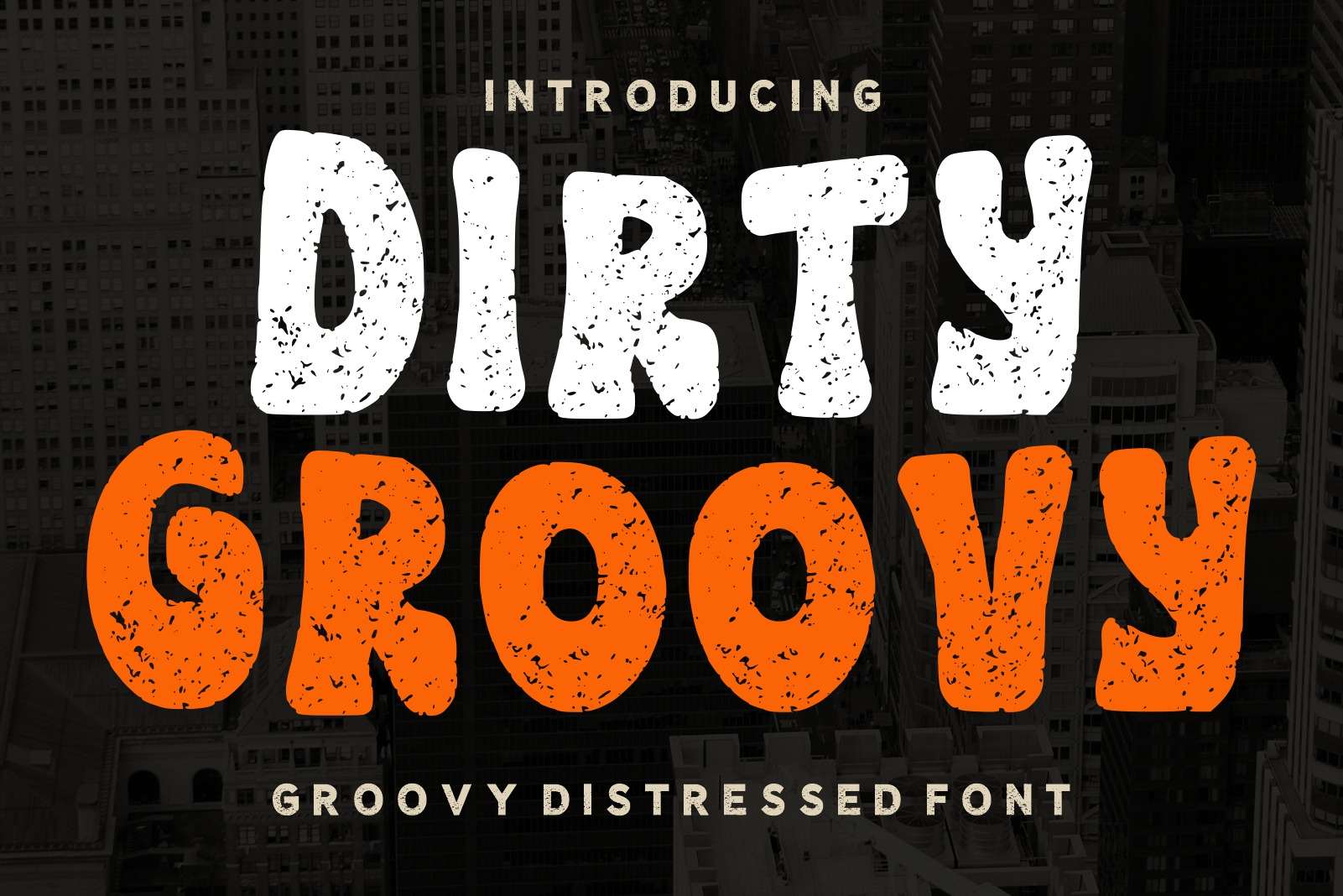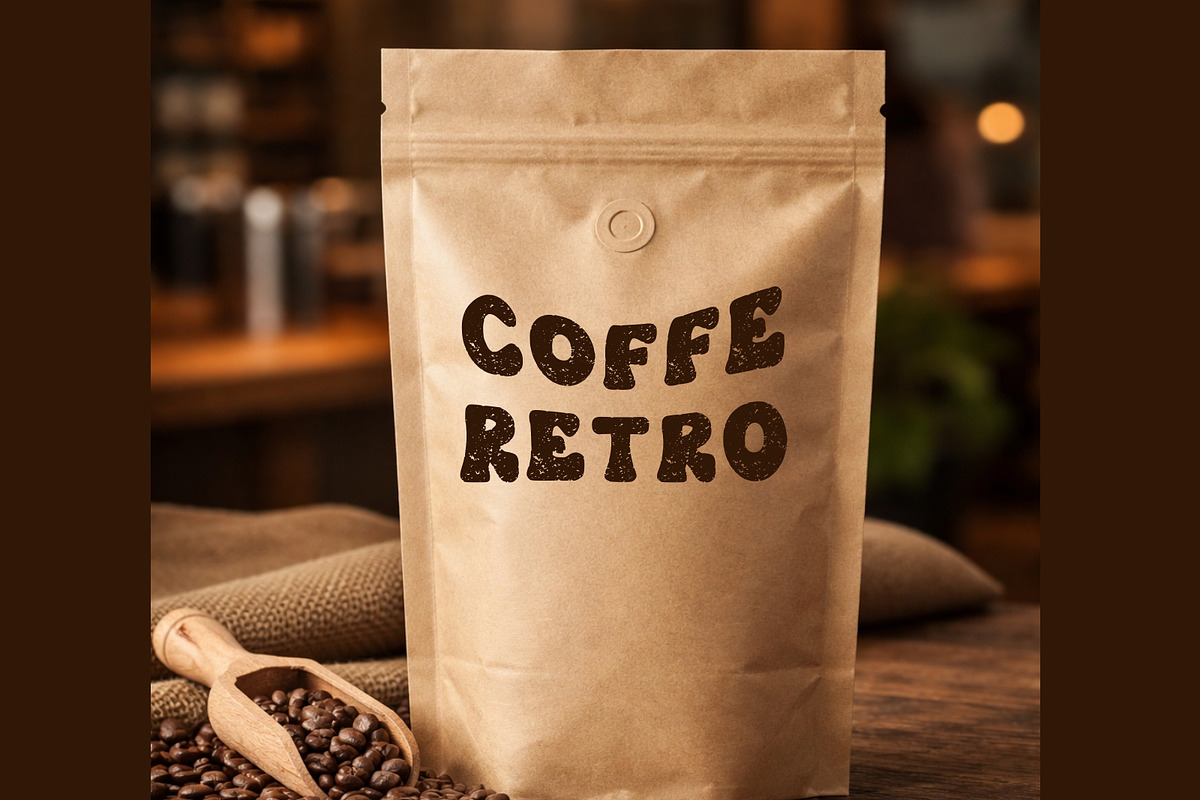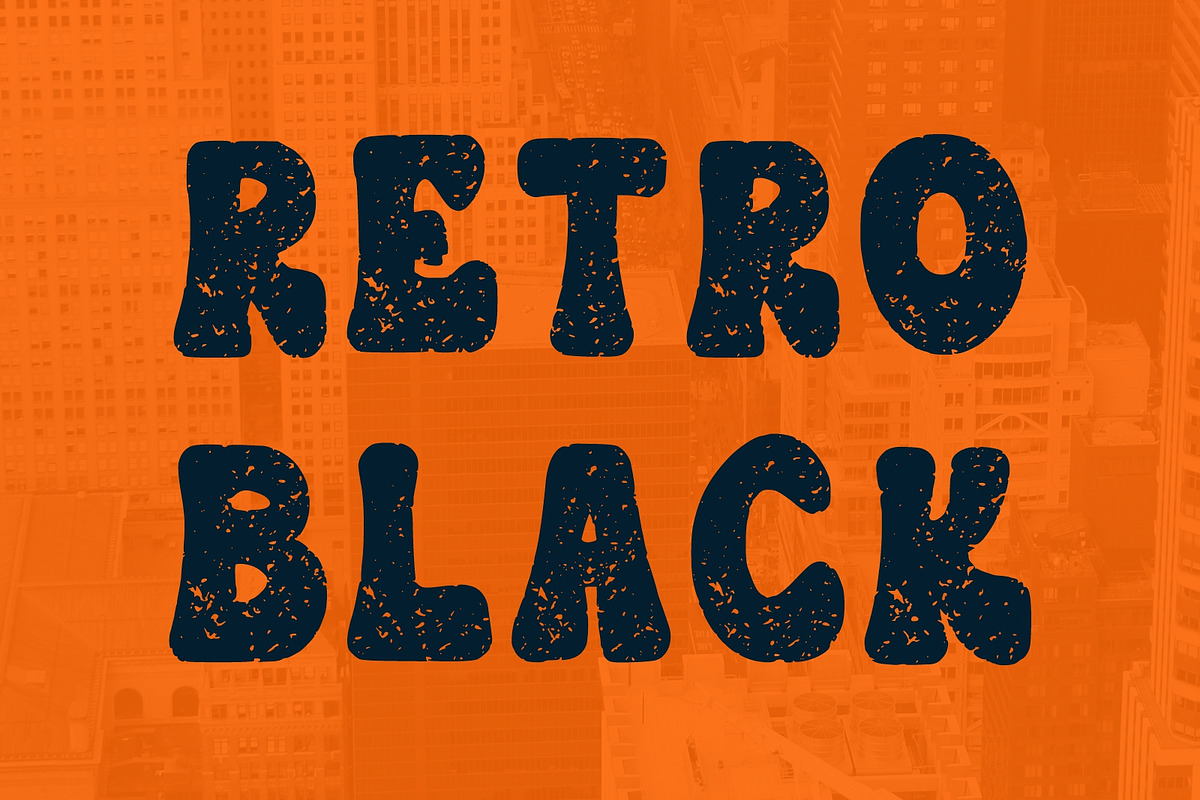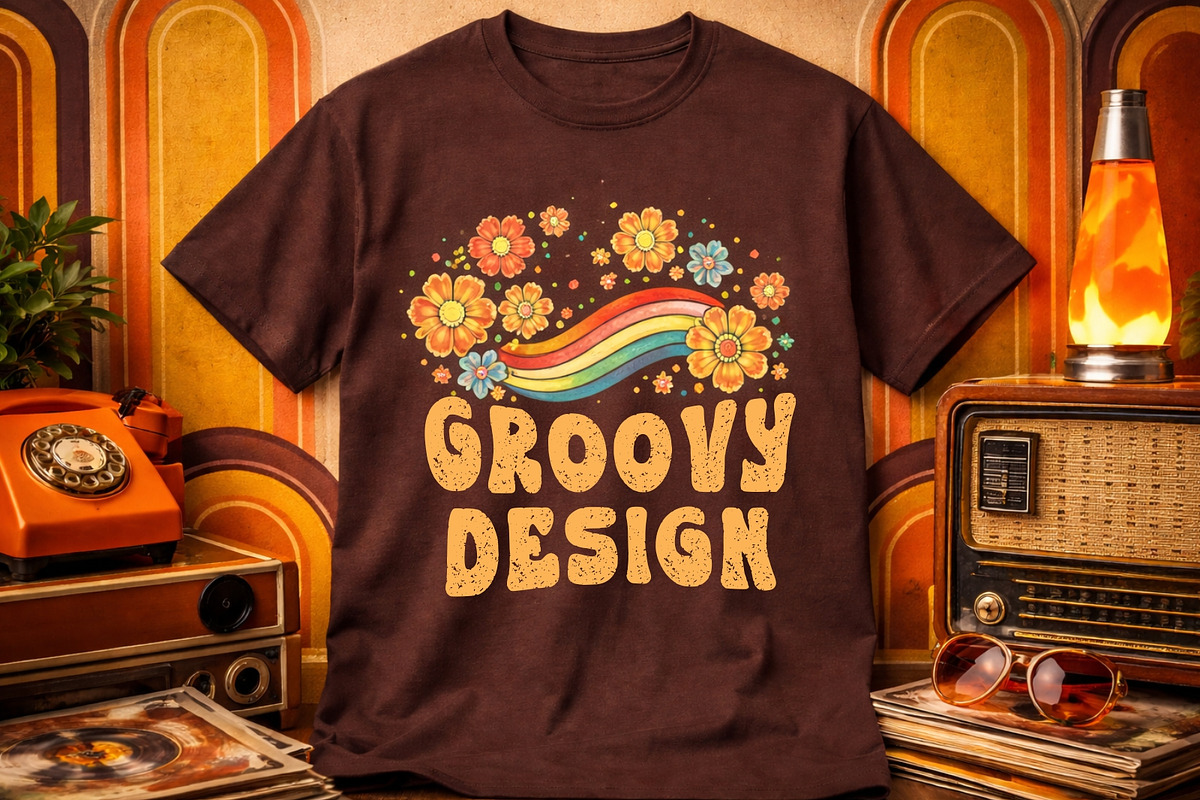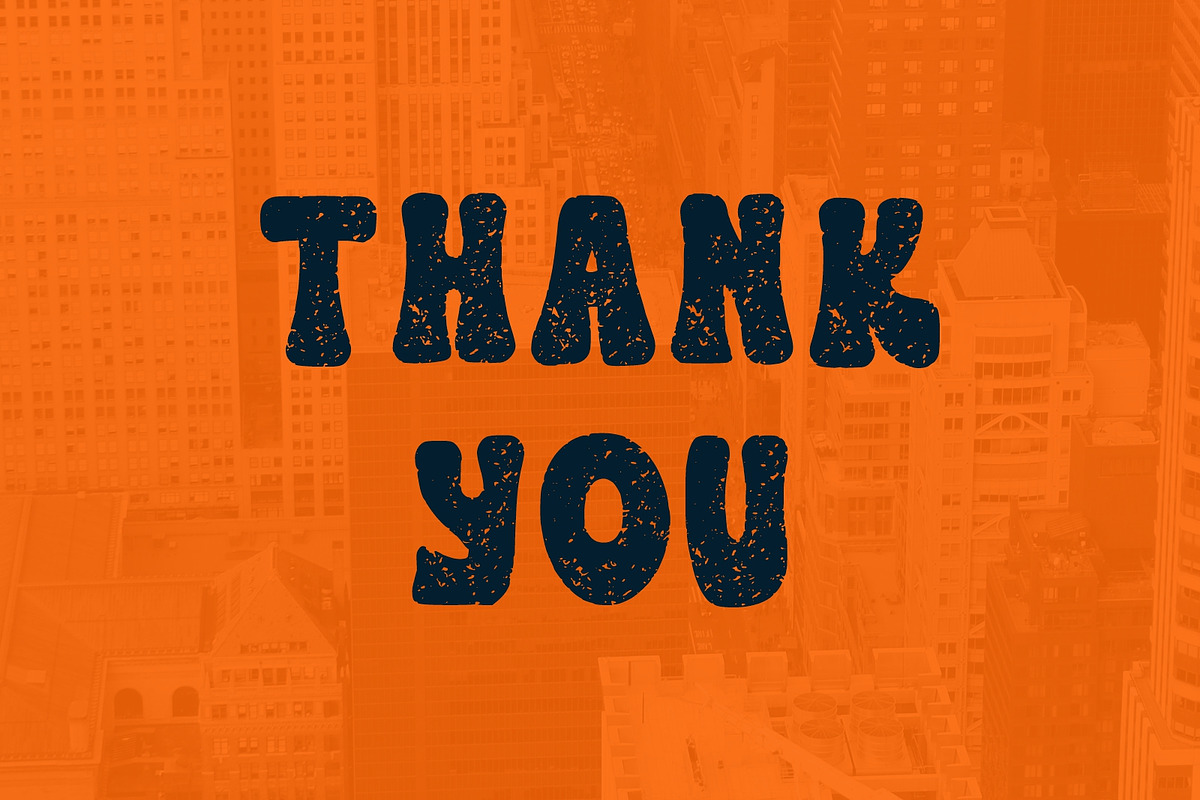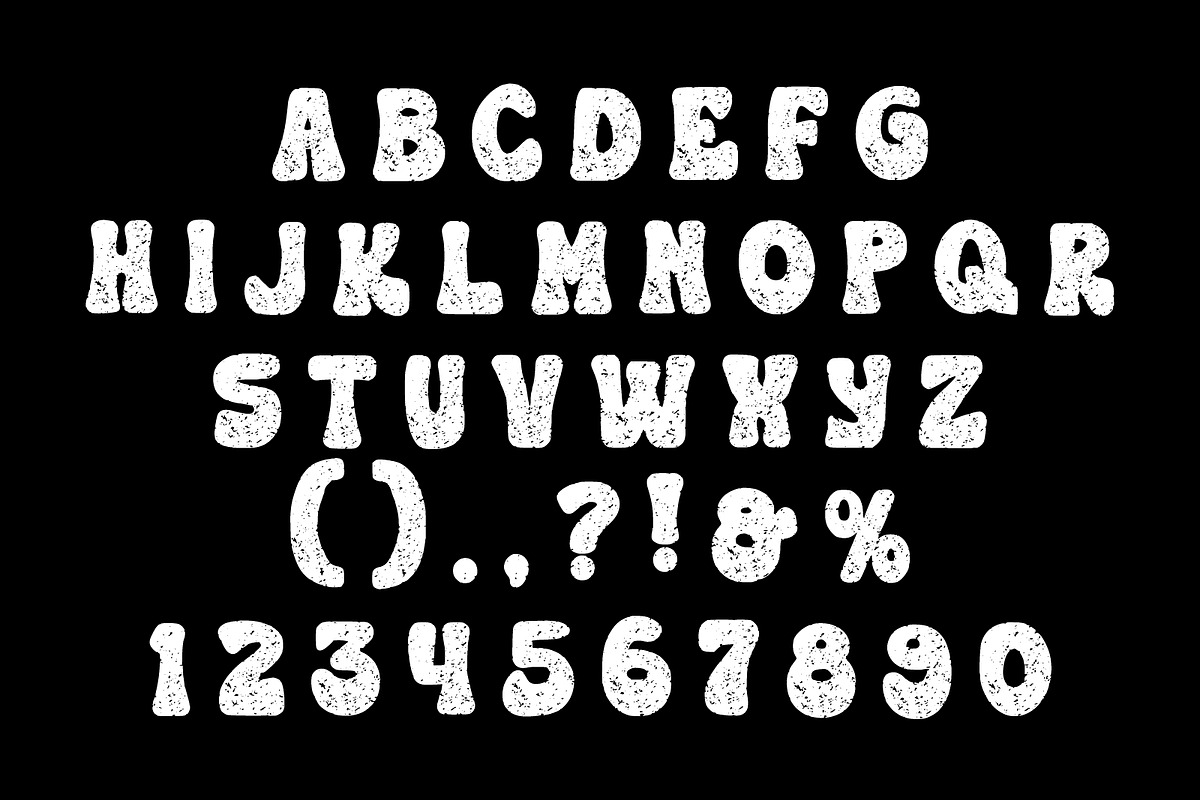
Dirty Groovy Groovy Distressed Font
Dirty Groovy is a bold and playful distressed font inspired by retro groovy typography with a rugged vintage texture. Featuring chunky letterforms and authentic grunge details, this font is perfect for posters, branding, packaging, t-shirt designs, music covers, social media graphics, logos, and creative retro projects. Its fun and expressive style creates a strong visual impact while keeping a nostalgic vintage feel. Dirty Groovy works perfectly for bold headlines, urban branding, festival posters, merchandise, and modern retro aesthetics.